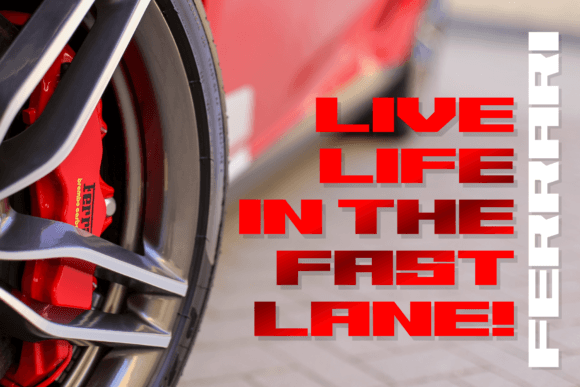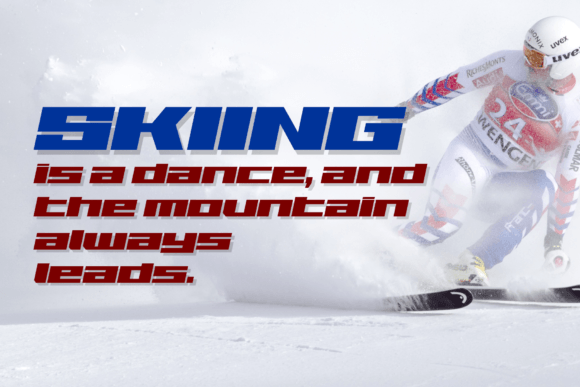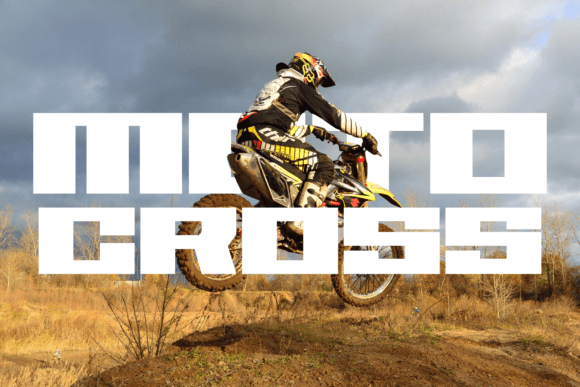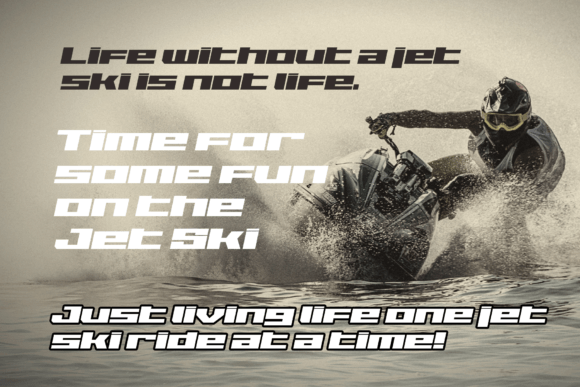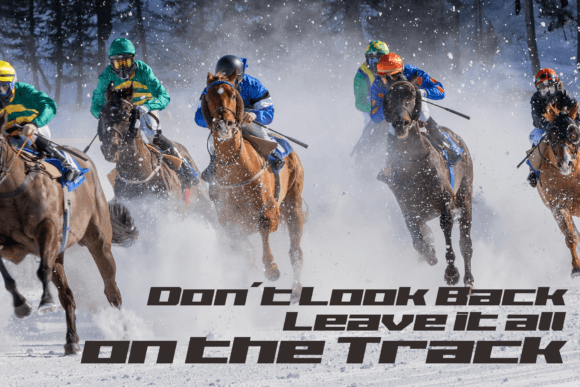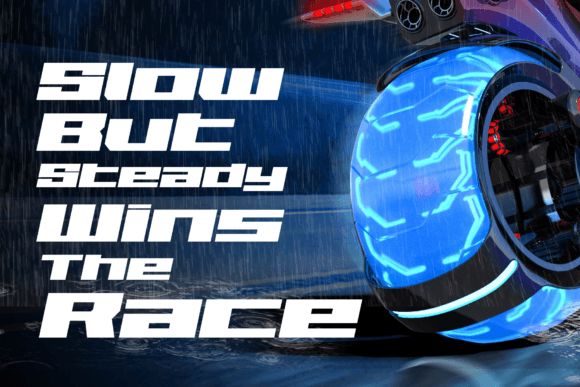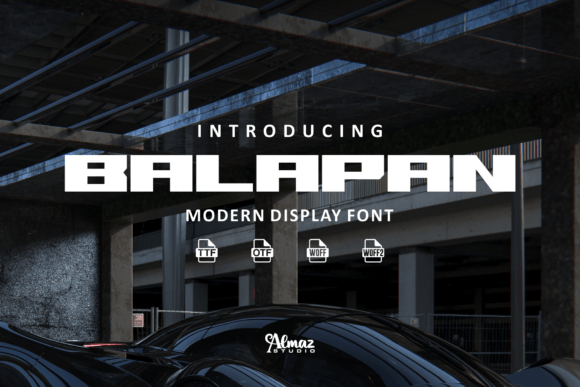
Unleash the Power of Balapan Font: Elevate Your Designs with a Bold Statement
In the world of typography, fonts play a crucial role in conveying the tone and personality of a design. When it comes to making a bold statement, few font styles can match the impact of Balapan Font. Specifically designed to exude power and energy, Balapan Font has become a go-to choice for designers and crafters looking to add a dynamic touch to their visual materials.
What is Balapan Font?
Balapan Font is a powerful and impactful font style characterized by its heavy strokes, thick lines, and sharp edges. This unique combination of features gives Balapan Font a strong and commanding visual presence, making it perfect for designs that require a bold and attention-grabbing approach. Whether you’re working on a sports-related project, a racing event, or any high-energy visual material, Balapan Font is sure to make a lasting impression.
Key Features of Balapan Font
- Heavy Strokes: Balapan Font features heavy strokes that give it a robust and powerful look. This feature is particularly useful for headlines, titles, and other design elements that require a strong visual impact.
- Thick Lines: The thick lines in Balapan Font add to its overall boldness, making it perfect for designs that require a sense of energy and dynamism.
- Sharp Edges: The sharp edges in Balapan Font give it a sleek and modern look, making it suitable for a wide range of design applications, from sports and racing to technology and innovation.
Uses of Balapan Font
Balapan Font is an incredibly versatile font style that can be used in various design applications. Some of the most common uses of Balapan Font include:
- Sports-related Designs: Balapan Font is a popular choice for sports-related designs, such as logos, jerseys, and promotional materials. Its bold and energetic look makes it perfect for representing teams, events, and athletes.
- Racing Events: The font’s powerful and dynamic look makes it an ideal choice for racing events, such as car racing, cycling, and running competitions.
- High-Energy Visual Materials: Balapan Font is also suitable for high-energy visual materials, such as posters, flyers, and social media graphics. Its bold and attention-grabbing look makes it perfect for grabbing the audience’s attention and conveying a sense of excitement and urgency.
Tips for Using Balapan Font Effectively
To get the most out of Balapan Font, here are some tips to keep in mind:
- Use it Sparingly: While Balapan Font is perfect for making a bold statement, it’s essential to use it sparingly to avoid overwhelming the audience. Use it for headlines, titles, or key design elements, and pair it with a simpler font for body text.
- Pair it with Contrasting Fonts: Balapan Font pairs well with contrasting fonts that have a simpler and more elegant look. This contrast will help create visual interest and make your design stand out.
- Experiment with Colors: Balapan Font looks great in bold and bright colors. Experiment with different colors to find the perfect combination that matches your brand or design theme.
| Font Name | Balapan Font |
| Author | almazstd24 |
Balapan Font is a powerful and impactful font style that’s perfect for designers and crafters looking to add a bold and dynamic touch to their visual materials. With its heavy strokes, thick lines, and sharp edges, Balapan Font is sure to make a lasting impression. By using Balapan Font effectively and following the tips outlined above, you can create stunning designs that grab attention and convey a sense of energy and excitement.